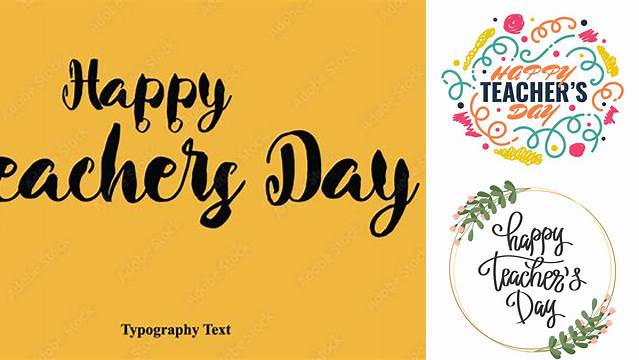
Happy Teachers Day: Font Fun For Heartfelt Greetings
Hey guys, ever wondered how something as simple as a font can completely change the vibe of your "Happy Teachers Day" message? It's true! The way you write "Happy Teachers Day" can make your appreciation feel casual, elegant, fun, or super sincere. It's not just about what you say, but how you present it, and fonts play a massive role in that. So, let’s dive into the awesome world of typography and lettering to make your Teachers Day greetings truly stand out and show those amazing educators just how much you care. We’re going to explore a ton of different ways to craft that perfect message, whether you're a digital wizard or love the touch of good old pen and paper.
Handwriting Styles for Teachers Day
When you're thinking about how to write Happy Teachers Day in a really personal way, nothing beats good old handwriting, right? It adds an instant touch of warmth and sincerity that digital fonts, as cool as they are, sometimes just can't replicate. Imagine your teacher receiving a card where your heartfelt message, including that beautiful "Happy Teachers Day," is penned in a style that’s uniquely yours, or perhaps a more refined script you’ve mastered. We're talking about everything from neat, legible block letters that speak of respect and clarity, to flowing, elegant cursive that whispers grace and tradition. You could even try a more whimsical, bubbly script if you’re aiming for a cheerful and youthful vibe, especially if the card is from younger students. The key here is to practice a little bit before committing to the final piece. Experiment with different pens – a fine-liner for delicate touches, a gel pen for smooth, bold lines, or even a calligraphy pen if you're feeling adventurous! Remember, the goal is not perfection, but rather the genuine effort and the unique character your handwriting brings to the phrase Happy Teachers Day. It’s this personal touch that often resonates most deeply, showing that you took the time and care to make their day truly special. So, grab a pen, some paper, and let your unique handwriting style make that "Happy Teachers Day" message truly unforgettable, because sometimes, the simplest things are the most profound and impactful, especially when coming from the heart, directly through your hand.
Digital Fonts for Teachers Day Cards
Alright, moving from paper to pixels, let’s talk about how to write Happy Teachers Day using awesome digital fonts for your e-cards, presentations, or even social media posts! The digital world offers an endless playground of typography, allowing you to easily switch styles, colors, and effects without the need for perfect penmanship. When choosing a digital font, think about the message you want to convey. For a formal, respectful greeting, a classic serif font like Georgia or Times New Roman, perhaps in a bold or italicized version for "Happy Teachers Day," can be incredibly effective, lending an air of tradition and authority. If you're going for something more modern and clean, sans-serif fonts such as Helvetica, Arial, or Montserrat are fantastic choices, offering clarity and a contemporary feel. And don't forget the fun factor! For a lighthearted and cheerful "Happy Teachers Day," consider playful display fonts that mimic handwriting or have unique, quirky shapes. Tools like Canva, Adobe Spark, or even simple word processors offer a plethora of font options that are just a few clicks away. You can also play with font sizes, making "Happy Teachers Day" stand out prominently at the top of your design, or experiment with different colors to match a theme. The beauty of digital fonts is the ability to undo, redo, and endlessly experiment until you find that perfect look. So go ahead, open up your favorite design tool, and let your creativity flow to design a stunning Happy Teachers Day digital card that will surely bring a smile to your teacher's face, making their special day shine even brighter with your thoughtful digital creation.
Creative Lettering for Teachers Day Wishes
For those who really want to make their Happy Teachers Day wishes pop, getting into creative lettering is an absolute game-changer. This isn't just about picking a font; it's about designing the letters themselves to express a unique sentiment. Creative lettering involves techniques like hand-lettering, faux calligraphy, or even drawing custom typefaces that bring an artistic flair to your message. Imagine crafting the phrase "Happy Teachers Day" with each letter having a unique flourish, a subtle shadow, or a charming doodle embedded within it. You could use bold outlines and fill them with vibrant colors, or create a three-dimensional effect that makes the words almost leap off the page or screen. Think about the personality of your teacher; are they energetic and fun, or more reserved and appreciative of elegant design? This can guide your creative lettering style. For a lively teacher, you might try bouncy, inconsistent baselines for your letters, making "Happy Teachers Day" feel dynamic and playful. For a more traditional educator, perhaps a refined, ornate script with delicate swashes would be more fitting. Don’t be afraid to mix and match styles within the phrase itself – maybe a bold, impactful "Happy" followed by a more elegant "Teachers Day." There are tons of online tutorials and resources for learning creative lettering, whether you're using digital tools like Procreate or Illustrator, or simply pens and paper. The effort you put into creative lettering for "Happy Teachers Day" truly speaks volumes, demonstrating not just your appreciation but also your dedication to making their special day visually stunning and deeply memorable. It's an art form that transforms a simple greeting into a personalized masterpiece, showing immense respect and gratitude for all their hard work and guidance.
Elegant Calligraphy for Teachers Day
When it comes to writing Happy Teachers Day with an air of sophisticated grace, nothing quite compares to elegant calligraphy. This timeless art form transforms simple letters into beautiful, flowing strokes, making any message feel incredibly special and refined. Calligraphy is all about precision, rhythm, and the deliberate creation of each character, turning your greeting into a visual masterpiece. Imagine a beautifully handcrafted card, where the words "Happy Teachers Day" are presented in a classic script like Copperplate, Spencerian, or even a more modern brush calligraphy style. Each curve, each line, and each flourish adds a layer of artistry that speaks volumes about the care and respect you hold for your teacher. For those just starting out, faux calligraphy is a fantastic entry point; you write the words in a simple script and then thicken the downstrokes to mimic the look of traditional calligraphy without needing specialized pens. For the more adventurous, investing in a good set of dip pens, inks, or brush pens can open up a world of possibilities. Think about the color of your ink – a classic black or sepia for a very traditional look, or a deep jewel-toned blue or green for a subtle contemporary twist. The deliberate, measured pace of writing in calligraphy allows you to truly focus on each word of "Happy Teachers Day," infusing it with thoughtful intent. This kind of personalized, artistic effort leaves an indelible impression, conveying a profound sense of gratitude and admiration that transcends ordinary greetings. It’s an exquisite way to honor your teachers, making their Happy Teachers Day truly feel like a cherished, artful tribute to their invaluable contributions.
Modern Typography for Teachers Day Greetings
Let’s shift gears and explore how modern typography can elevate your Happy Teachers Day greetings, especially if you're aiming for a fresh, clean, and impactful look. Modern typography is all about clarity, minimalist design, and using fonts in smart, often unexpected ways to create visual interest. When applying this to "Happy Teachers Day," think about striking sans-serif fonts like Lato, Open Sans, or Roboto, which are incredibly versatile and readable across various mediums. These fonts exude a contemporary feel, making your message appear crisp and polished. The beauty of modern typography lies in its ability to convey professionalism and thoughtful design without being overly ornate. You can play with varying weights of the same font – perhaps making "Happy" in a bold, heavy weight, and "Teachers Day" in a lighter, more elegant weight to create a dynamic contrast. Another trick is using generous white space around your text; this isn't just empty space, but a crucial design element that allows your "Happy Teachers Day" message to breathe and stand out without clutter. Consider also a clean, aligned layout, perhaps left-aligned for a traditional yet modern look, or center-aligned for emphasis. Modern typography often embraces a limited color palette, perhaps just one or two accent colors against a neutral background, making the text itself the star of the show. For digital greetings, think about how the font appears on screens of different sizes. Modern fonts are typically optimized for web and mobile, ensuring your "Happy Teachers Day" message looks great everywhere. Embracing modern typography for your Teachers Day greetings is a fantastic way to show your appreciation with a touch of contemporary flair, proving that sometimes, less truly is more when it comes to impactful and stylish design that makes your message, "Happy Teachers Day," shine with sophisticated simplicity and a heartfelt touch.
Fun & Playful Fonts for Teachers Day
Sometimes, the best way to say Happy Teachers Day is with a burst of joy and a touch of whimsy, and that's where fun and playful fonts come into their own! These fonts are perfect for teachers who have a great sense of humor, teach younger children, or simply appreciate a lighter, more cheerful approach. Imagine a greeting card where "Happy Teachers Day" is written in a font that looks like it's bouncing, has rounded edges, or even incorporates little decorative elements like stars or hearts. Fonts such as Comic Sans (yes, it has its place!), Bubblegum Sans, or specific handwriting-mimicking fonts like 'Kalam' or 'Permanent Marker' can instantly inject a dose of lightheartedness and warmth into your message. The key here is to choose a font that reflects the happy, celebratory spirit of the day without sacrificing readability. You want your teacher to easily understand your joyful "Happy Teachers Day" message, not struggle to decipher it! These types of fonts are fantastic for classroom posters, student-made cards, or even cheerful social media shout-outs. You can further enhance the playful vibe by using bright, cheerful colors for the text, perhaps alternating colors for each word or even each letter within "Happy Teachers Day." Don’t be afraid to mix in some cute emojis or small illustrations if you’re creating a digital design. The goal is to make your teacher smile, to remind them of the bright and energetic spirit they bring to their classroom every day. So, unleash your inner child (or just embrace the fun!) and pick a font that makes your "Happy Teachers Day" greeting a vibrant, memorable, and utterly delightful celebration of their amazing work, bringing a burst of pure joy to their special day.
Using Script Fonts for Teachers Day Messages
When you're aiming for a touch of elegance and a more personal, handwritten feel without actually writing it out yourself, using script fonts for your Happy Teachers Day messages is an excellent choice. Script fonts mimic cursive handwriting, ranging from highly formal and ornate styles to more relaxed and casual brush scripts. Imagine your "Happy Teachers Day" greeting gracefully flowing across a card, looking as if it was meticulously penned by a skilled calligrapher. Formal script fonts, like Great Vibes or Allura, can lend an air of sophistication and deep respect, perfect for a heartfelt thank-you to a mentor or a long-serving teacher. These styles often feature beautiful swashes and ligatures that connect letters seamlessly, creating a truly artistic presentation of Happy Teachers Day. On the other hand, if you’re going for something a bit more approachable and friendly, opt for a casual script font, such as Pacifico or Dancing Script. These have a more natural, almost spontaneous feel, making your "Happy Teachers Day" message feel warm and personally crafted, but still with that refined touch. The trick with script fonts, especially the more elaborate ones, is to ensure readability. Avoid using them for long blocks of text; they are best reserved for headlines, signatures, or, in this case, the prominent phrase "Happy Teachers Day." Pairing a script font for the main greeting with a simpler, legible sans-serif font for the body of your message creates a beautiful contrast and ensures your entire card is easy to read. Digital platforms like Canva or even Microsoft Word offer a wide selection of script fonts that can instantly elevate your Teachers Day wishes, making your Happy Teachers Day message resonate with a blend of classic charm and sincere affection.
Block Lettering for Teachers Day Banners
If you're looking to make a bold, clear, and impactful statement for Happy Teachers Day, especially for something like a classroom banner, a poster, or a large display, then block lettering is your absolute go-to! Block letters are characterized by their strong, often geometric shapes, consistent width, and incredible legibility from a distance. Think of them as the superheroes of typography when you need your message to be seen and understood across a room. When you craft "Happy Teachers Day" using block lettering, each letter becomes a distinct, sturdy form, conveying a sense of strength, directness, and unmistakable presence. This style is fantastic for communal greetings where many students might contribute, as it’s relatively easy to draw or cut out, and it ensures that the collective message is clear and unified. You can make block letters even more dynamic by adding outlines, shadows, or filling them with vibrant colors or patterns that reflect the celebratory mood. Imagine a "Happy Teachers Day" banner where each block letter is a different bright color, or perhaps decorated with small drawings related to learning, like pencils or books. For a very classic and timeless look, simple black or white block letters against a contrasting background are always effective. Digital tools offer many block-style fonts (like Impact, Anton, or Bebas Neue) that can be easily scaled up for large printouts. When hand-drawing, a ruler and pencil can help you keep lines straight and consistent, ensuring that your Happy Teachers Day message is neat and professional. The sheer visual weight of block lettering ensures that your appreciation is not just heard, but seen clearly and powerfully, making your Teachers Day banner an undeniable tribute to your educators, a clear and strong declaration of thanks for all they do.
Unique Font Combinations for Teachers Day
Want to make your Happy Teachers Day message truly memorable and visually engaging? Then it’s time to explore the art of unique font combinations! Mixing different fonts effectively can add depth, personality, and a sophisticated design edge to your greetings. The trick is to find fonts that contrast beautifully without clashing, creating a harmonious yet dynamic look for your "Happy Teachers Day" wishes. A classic and often very successful approach is to pair a strong, attention-grabbing header font (like a bold sans-serif or an elegant script) with a simpler, highly readable body font (typically a clean sans-serif or a traditional serif). For instance, you could use a flowing, artistic script font for the word "Happy" to convey warmth and personal touch, then switch to a crisp, modern sans-serif for "Teachers Day" to ensure clarity and impact. Or, perhaps a playful, chunky display font for "Happy" to create an immediate sense of joy, followed by a more refined serif for "Teachers Day" to add a touch of classic respect. When choosing combinations for Happy Teachers Day, consider fonts from different classifications – a serif and a sans-serif, or a script and a sans-serif, generally work well together. Avoid pairing two very similar script fonts or two very ornate display fonts, as this can make your message look cluttered and difficult to read. Look for fonts that have different personalities but share some underlying design elements, like a similar x-height or stroke weight, to maintain visual coherence. Online tools like Font Pair or even Canva's font pairing suggestions can be incredibly helpful in discovering winning combinations. Experimenting with different pairings allows you to craft a unique visual story for your Happy Teachers Day message, making it not just a greeting, but a thoughtful piece of design that truly reflects your profound appreciation and care for your teachers, showcasing your creativity and making their day feel extra special.
The Evolution of Teachers Day Font Trends
Just like fashion or music, font trends for occasions like Happy Teachers Day are constantly evolving, reflecting shifts in design aesthetics, technological advancements, and cultural moods. Understanding these trends can help you choose a font that feels current, fresh, and relevant, making your "Happy Teachers Day" message resonate with contemporary flair. Historically, formal occasions might have exclusively called for elegant calligraphic scripts or classic serifs, embodying tradition and gravitas. Think of the elaborate penmanship of early 20th-century certificates. However, with the rise of digital design and a move towards minimalism, more modern sans-serif fonts have become incredibly popular for their clean lines, versatility, and readability on screens. Today, for Happy Teachers Day, we see a blend of styles. There's a strong trend towards personalized, 'human' touches, leading to a resurgence of charming, imperfect hand-lettered or brush script fonts that convey warmth and authenticity. These make a "Happy Teachers Day" message feel genuinely crafted and less generic. At the same time, bold, impactful sans-serifs with geometric precision remain popular for creating strong, clear statements, especially in social media graphics where attention-grabbing visuals are key. Another emerging trend is the use of 'variable fonts,' which allow for dynamic adjustments to weight, width, and other properties, offering incredible design flexibility for a uniquely styled "Happy Teachers Day." Color gradients and subtle animations applied to font art are also increasingly common in digital Teachers Day greetings. The key takeaway for "Happy Teachers Day" messages is the balance between tradition and innovation. While classic styles will always have their place, embracing newer font trends can make your appreciation feel fresh and modern, showing that you're celebrating your teachers in a way that's both respectful of their enduring impact and reflective of contemporary creativity, ensuring your Happy Teachers Day message is both timeless and trend-setting. This ensures your message is not only heartfelt but also visually captivating and relevant, truly standing out in the digital age. This evolution shows how design is always adapting to convey feelings in new and powerful ways, making your Happy Teachers Day truly reflective of the times. And there you have it, guys – a full dive into the incredible world of fonts for Happy Teachers Day! I hope this helps you craft the most amazing and heartfelt messages for the awesome teachers in your lives.